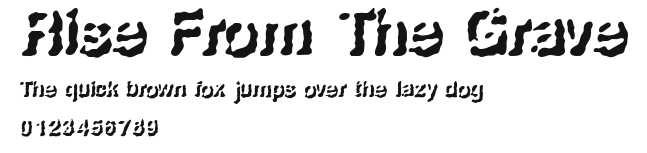
Rise From The Grave Preview
• Font Name: Rise From The Grave
• Designer: Guillaume-Ulrich Chifflot
• Manufacturer: Guillaume-Ulrich Chifflot for N9 Multimedia Lab
• Description: N9's blurry Rise From the Grave Font is